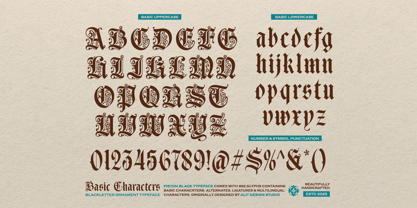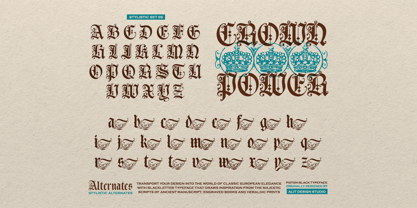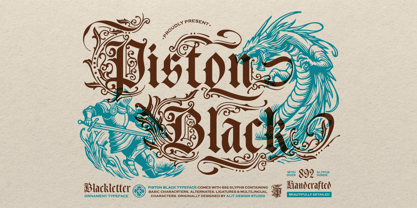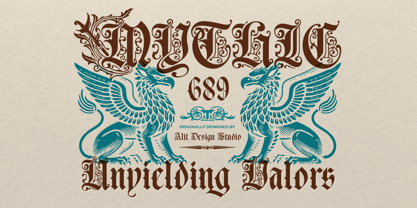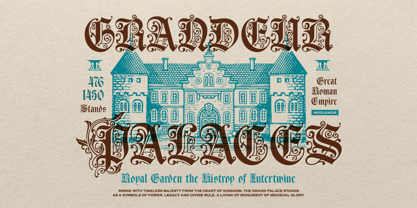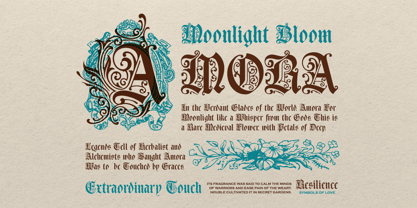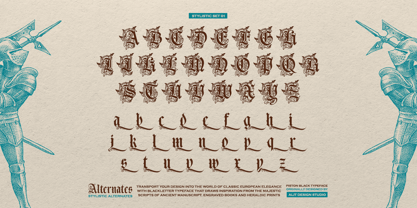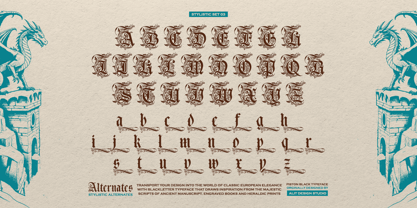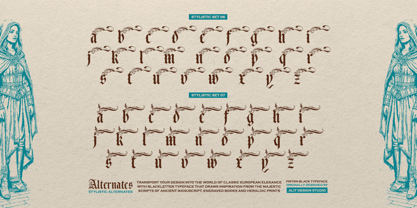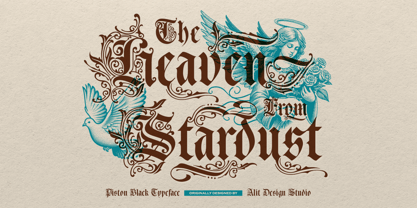
Piston Black
Piston Black Typeface
Classic Blackletter with Exquisite Ornamental Detailing
Piston Black is an intricately handcrafted blackletter ornament typeface that draws inspiration from medieval manuscripts, gothic engravings, and vintage heraldry. Designed for creators who seek a typeface that embodies elegance, strength, and timeless sophistication, this font is perfect for branding, packaging, editorial layouts, book covers, and ceremonial documents.
Carefully crafted by Alit Design Studio, Piston Black bridges the gap between tradition and innovation. Its unique blend of classic blackletter structure and ornamental flourishes delivers a dynamic and expressive typographic experience. Every curve and stroke is imbued with handcrafted precision, making it a standout choice for designers who want their work to exude power, artistry, and attention to detail.
✧ Font Features
✦ 892 Total Glyphs
An expansive character set offering you complete typographic freedom. Includes upper and lowercase letters, numerals, punctuation, symbols, and a vast range of decorative characters.
✦ Alternates
Multiple stylistic alternate characters allow you to vary your design effortlessly. Create visual rhythm and texture by alternating characters in logos, titles, or headlines.
✦ Swashes
Elegant and sweeping swash variations enhance the visual drama of your text. Perfect for creating dynamic drop caps, ornate monograms, or regal headlines.
✦ Ligatures
Custom ligatures bring a fluid, authentic handwritten look to your work by connecting characters in visually harmonious ways.
✦ Multilingual Support
Supports a wide array of international languages, including Western, Central, and Eastern European character sets. Make your work accessible across cultures and regions.
✧ Design Use Cases
Piston Black is ideal for:
Luxury branding and logos
Book and album covers
Tattoo designs
Gothic or medieval-themed posters
Whiskey and wine label design
Certificates and formal invitations
Editorial headlines
Fantasy-themed merchandise and packaging
Whether you're designing for a vintage knight-themed event, a dark metal band, or a high-end artisanal product, Piston Black delivers unforgettable visual impact.
✧ Final Words
Piston Black Typeface is not just a font – it’s a typographic experience. If your design needs bold character, baroque detail, and a regal aura, then Piston Black will become your go-to weapon of choice.